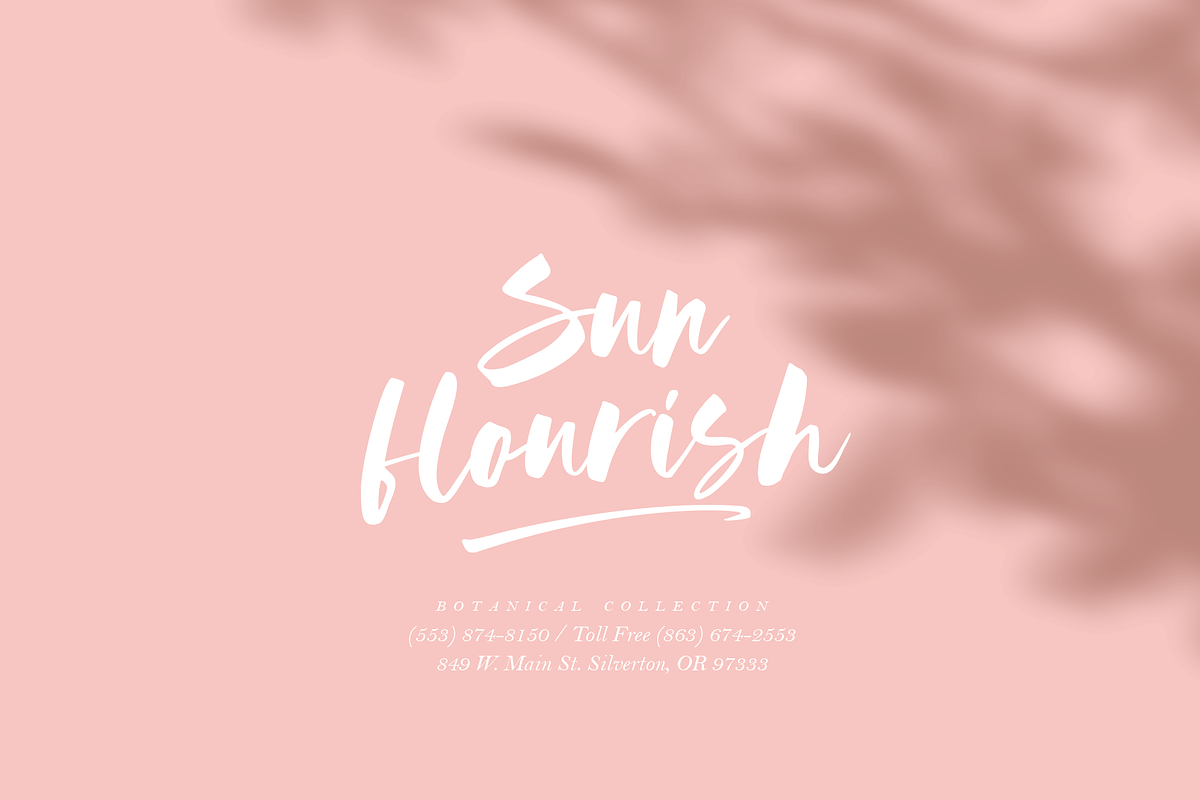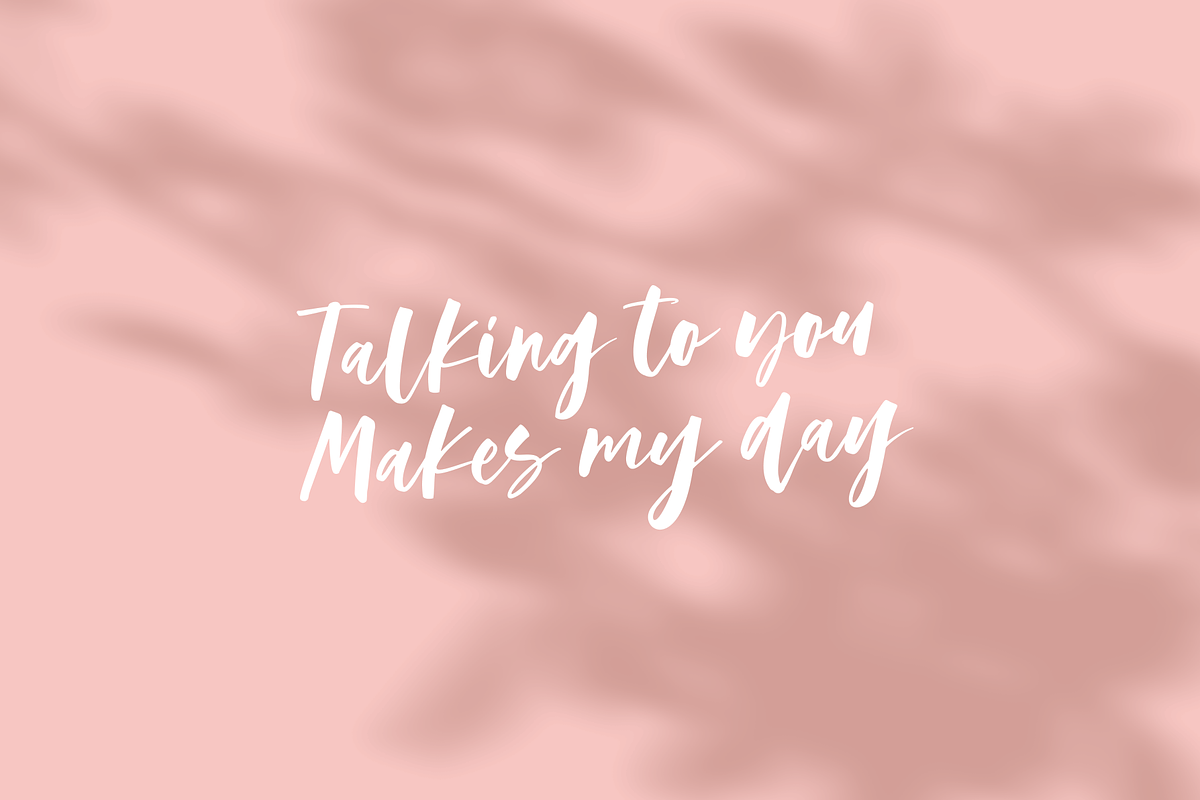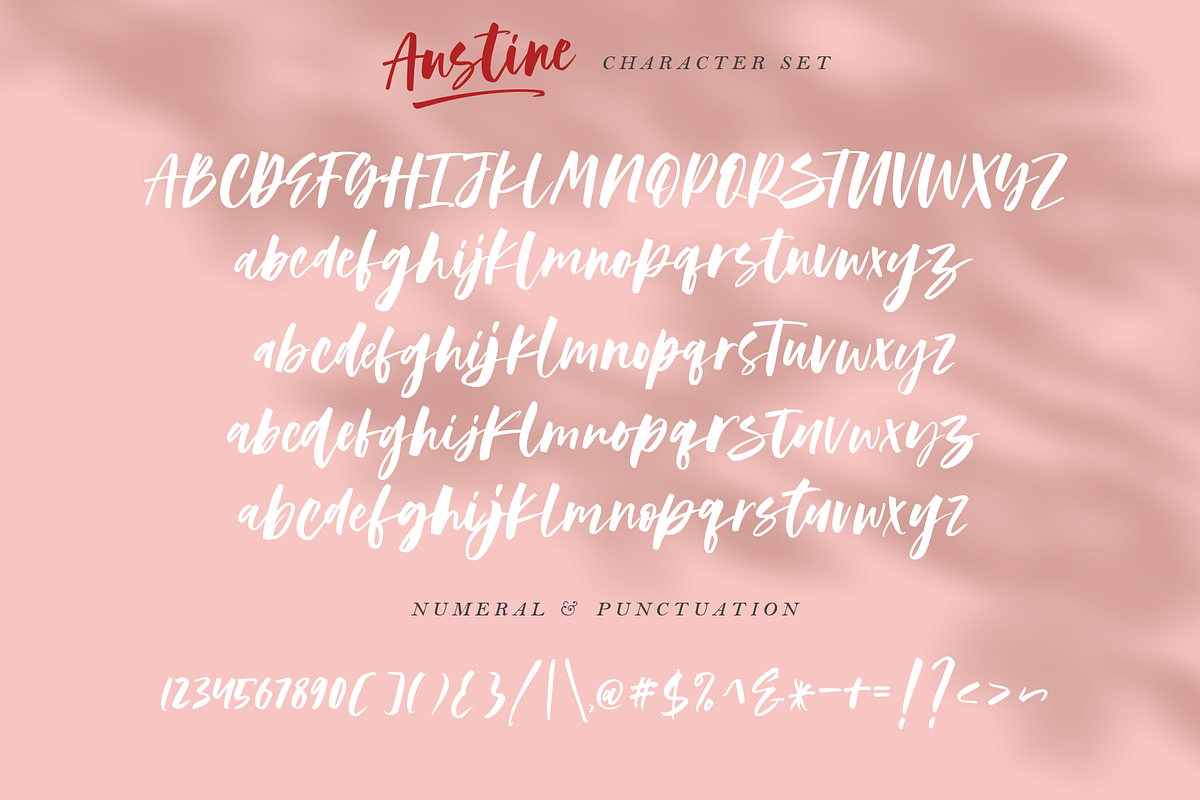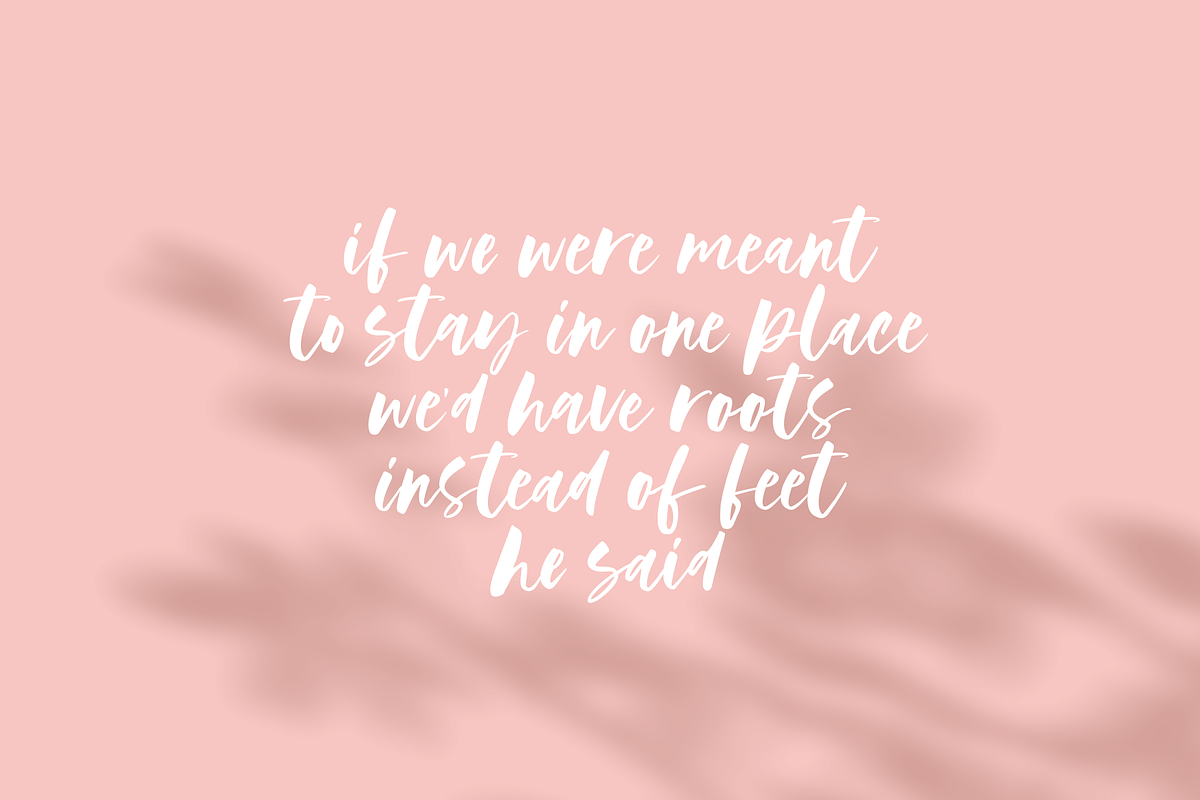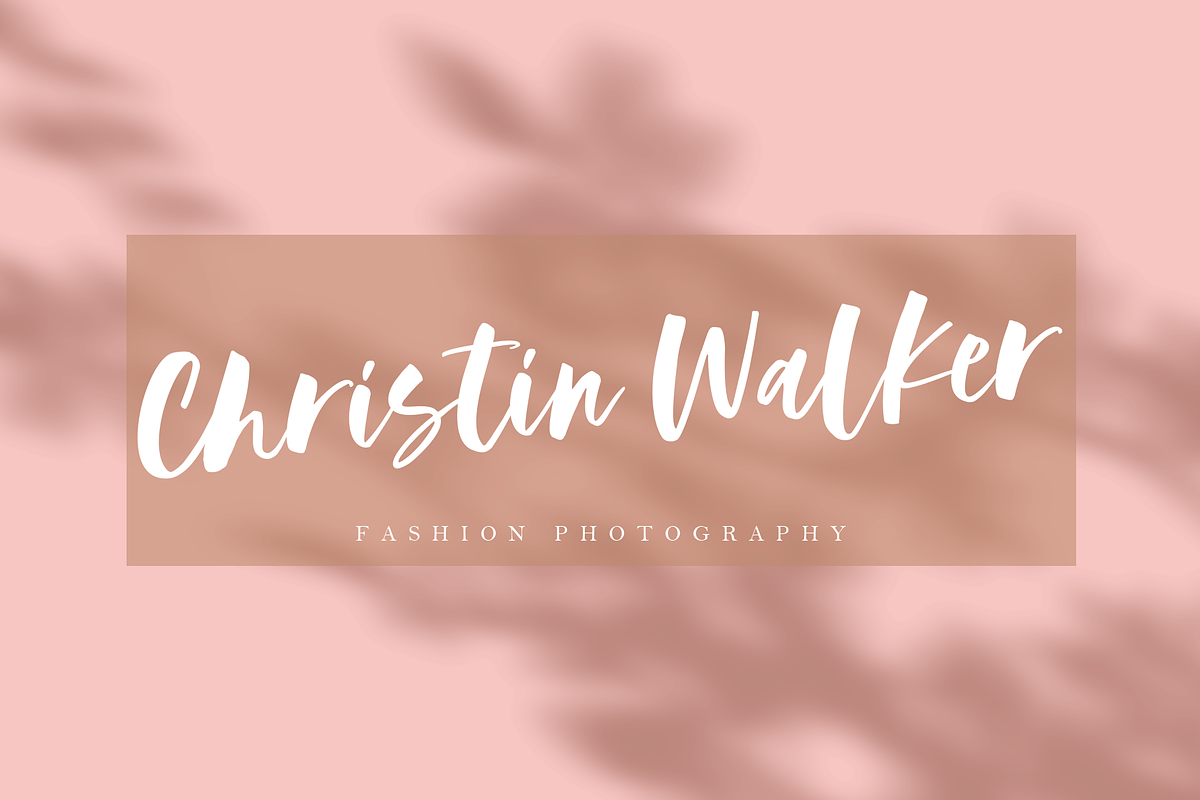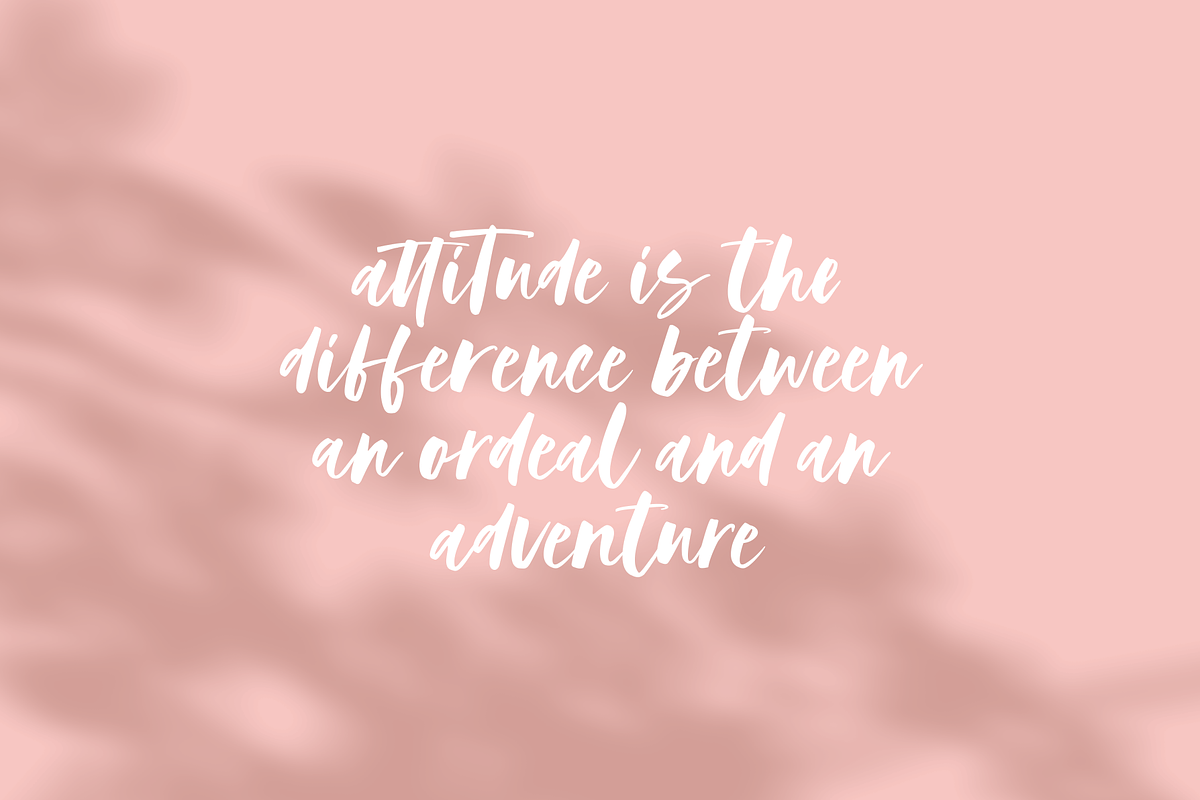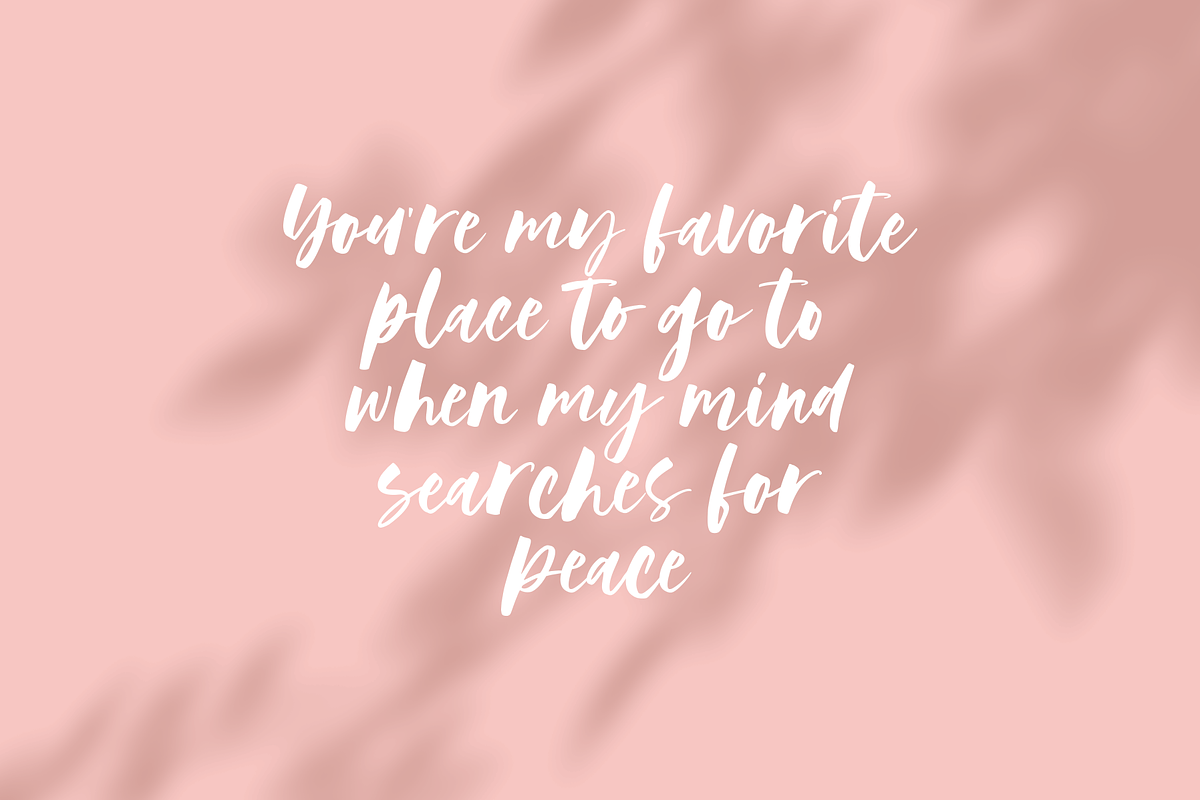
Austine - A Modern Script Font
Introduce Austine A Modern Script fonts. Fonts are a type of script font with a thick brushpen. Austine is made by hand using a modern style. This font is more suitable to be used to make quotes / contents of novels that emphasize feminine impression. and can also be used for product logos, personal logos, wedding invitations
Austine has an alternative to 4 lowercase types, you can create a unique style when several characters from the same letter.
Austine - A Modern Script Font by Megi Satyo Widodo fits naturally into Branding, posters, packaging, typography.